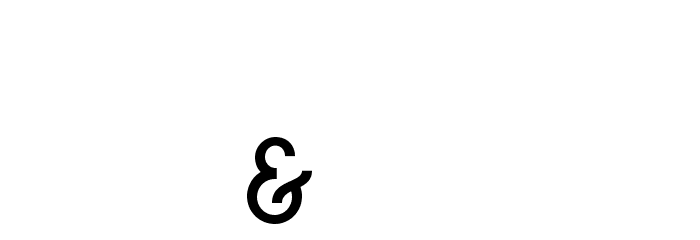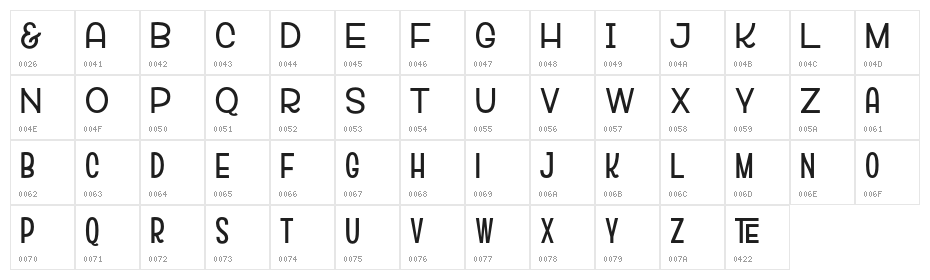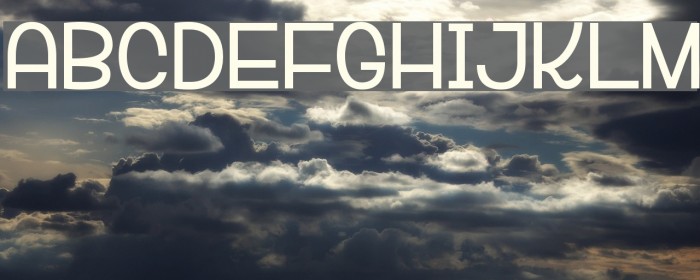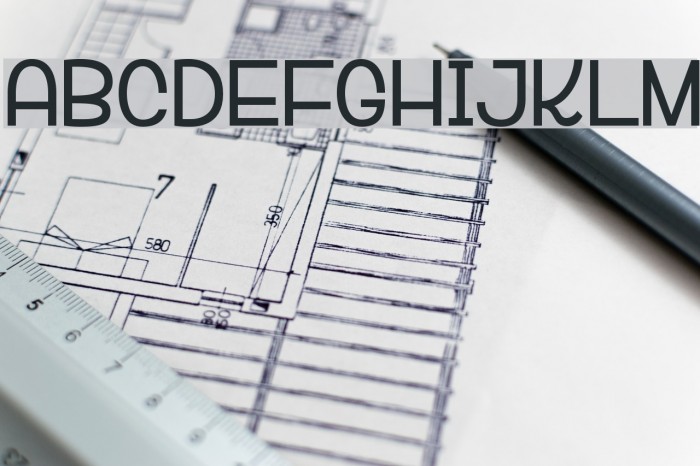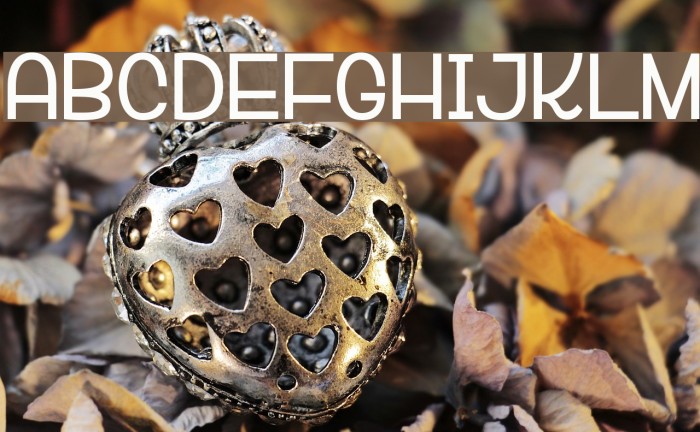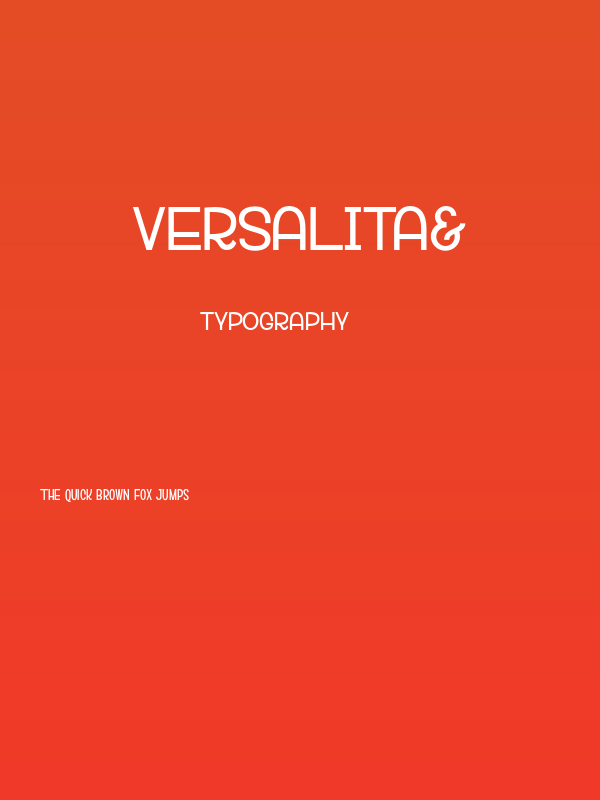
VeRsaLiTa& Font
VeRsaLiTa& Description
This font features a bold and modern design with a geometric structure. The uppercase letters are uniform in height, with clean lines and a slightly condensed appearance. The strokes are consistent in weight, providing a balanced and cohesive look. The ampersand is uniquely styled, adding a touch of elegance to the overall design. This typeface is versatile, suitable for various applications where a strong and contemporary aesthetic is desired.
| Proposed Projects | Ideal for branding, headlines, posters, and digital media where a modern and impactful look is required. |